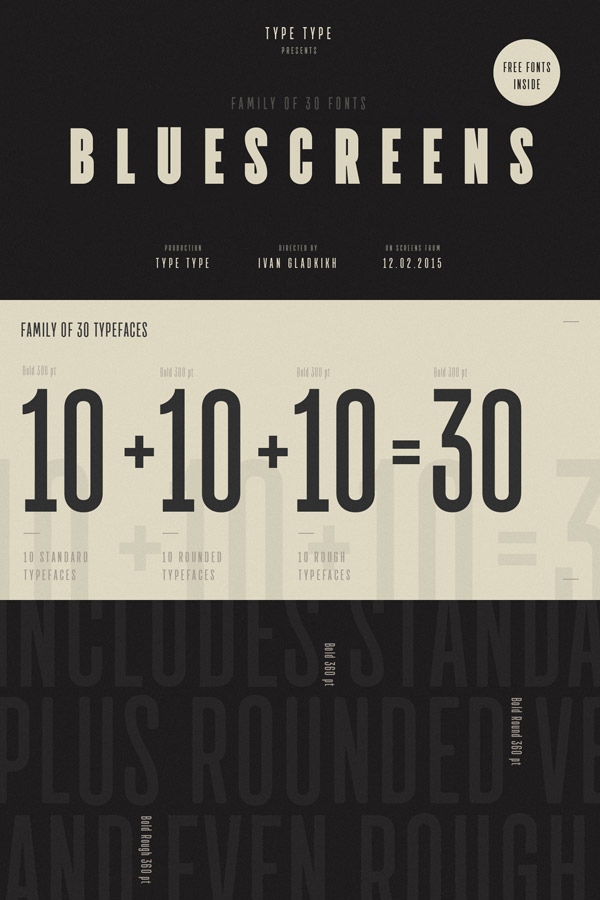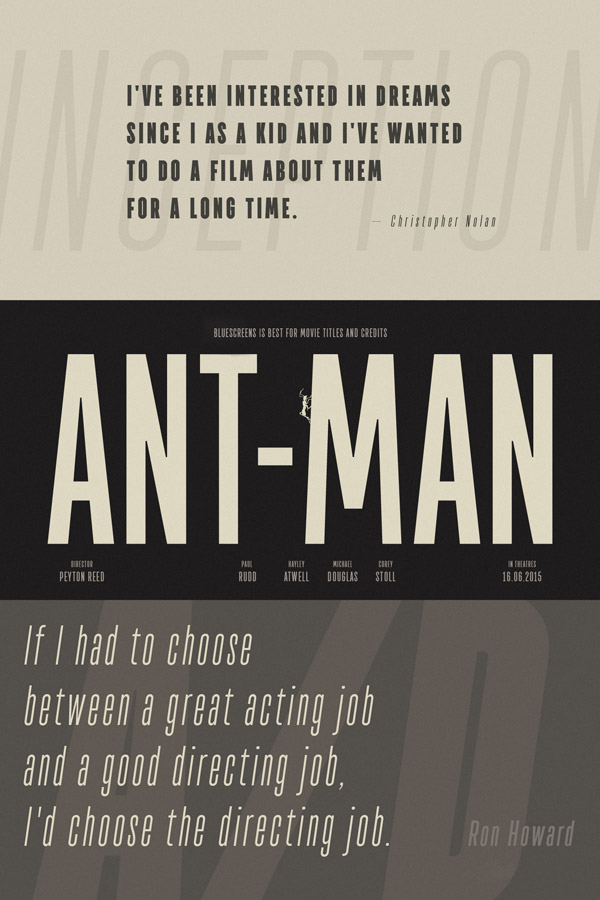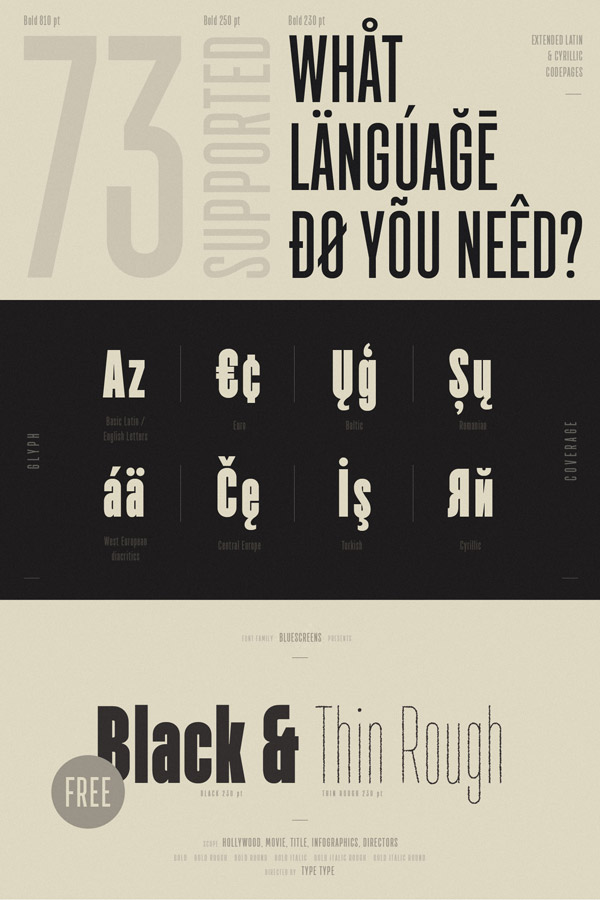
TT Bluescreens by font designer Ivan Gladkikh of foundry TypeType, a type family of 30 fonts including 2 free versions.
Look at this beautiful display font family! Saint Petersburg, Russia-based type designer Ivan Gladkikh of foundry TypeType has created the extensive TT Bluescreens font family in 2014/2015. The family consists of 30 fonts divided into 3 styles (a regular, a rounded, and a rough version). All styles include diverse weights ranging from Thin to Black plus matching Italics.
TT Bluescreens is a sans serif display font with a narrow look. This high-quality font family has been designed especially for cinephiles and directors. It is intended for use in movie titles, credits, and quotes. An extensive character set supports multiple languages.